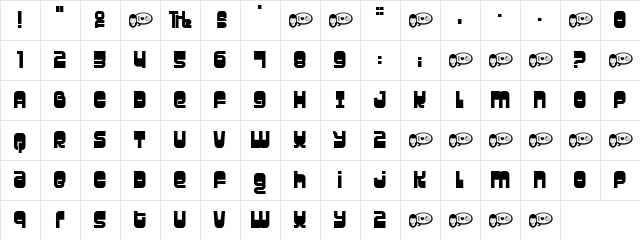
Gravity Regular
Design Context for Gravity Typeface
Gravity offers clean, dependable letterforms without strong stylistic allegiance, making it a practical choice for designers who need flexibility.